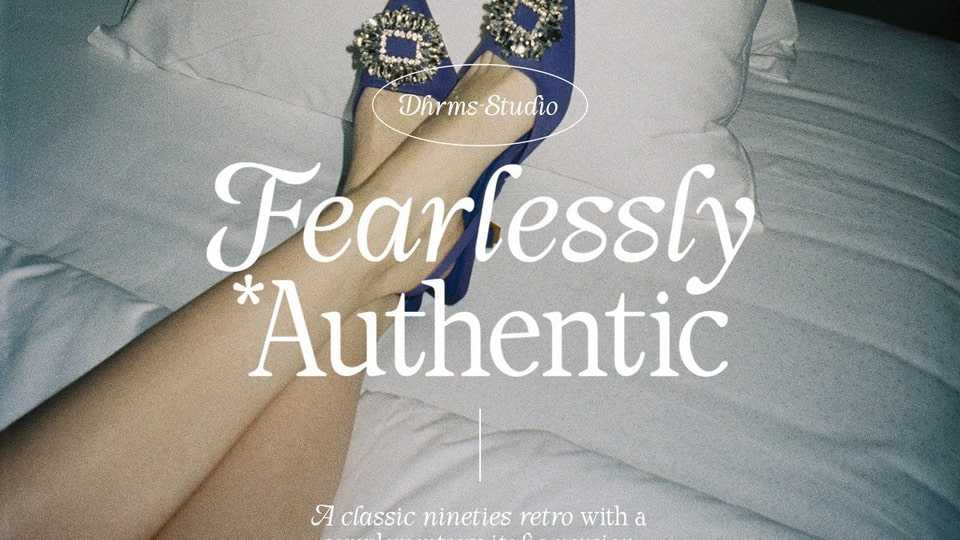
DDownload Fearlessly Authentic font, a classic nineties retro typeface with a complementary italic version. Make it slightly rounded for a retro look and make your design look great!